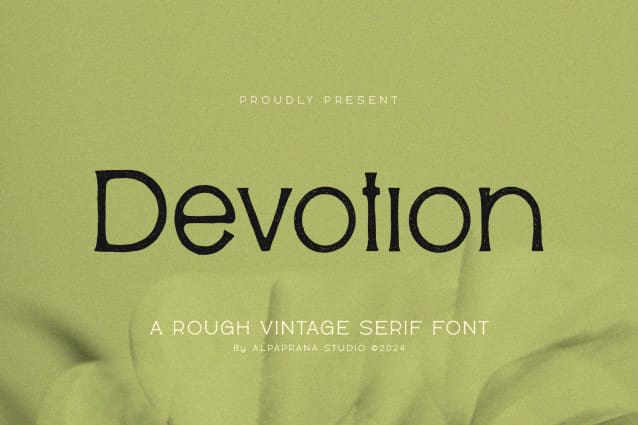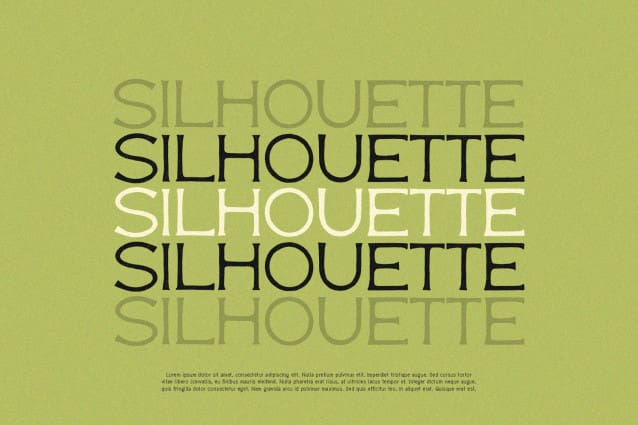
Devotion Rough Serif Font
Devotion Rough Serif Font is a rough serif font with unique and classic feels. It will be perfectly used for Branding, Logo Design, Lettering, Logotype, Clothing, Poster, magazine, packaging, posters, shopping bags, t-shirts, book covers, photography, special events and other design project.